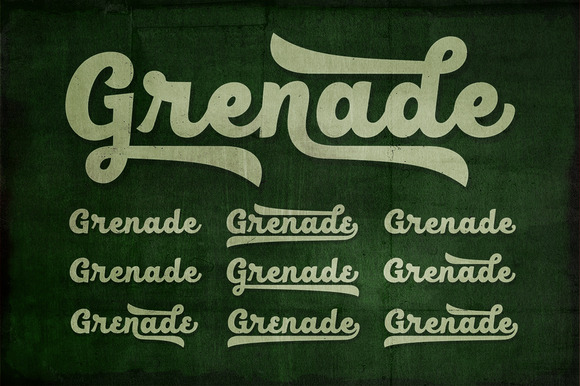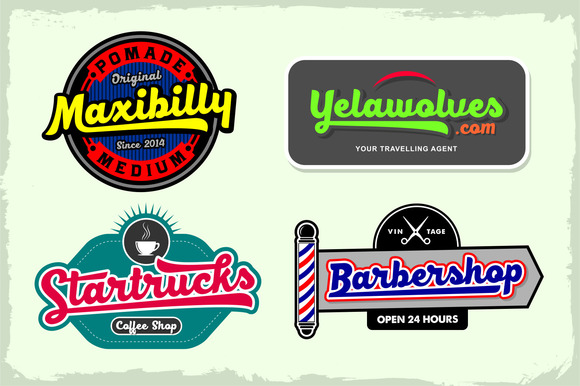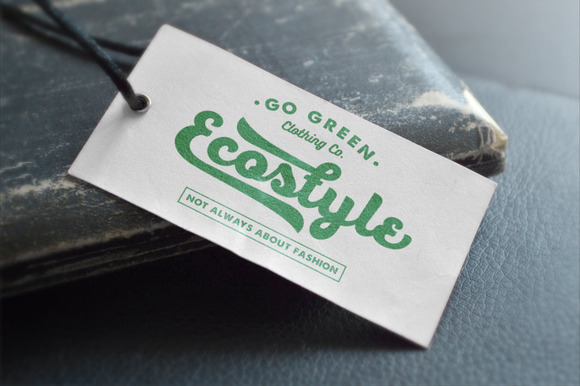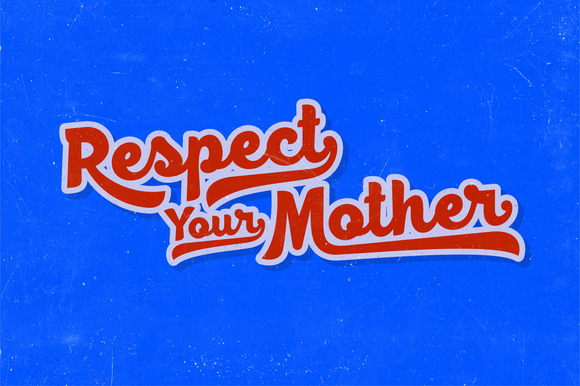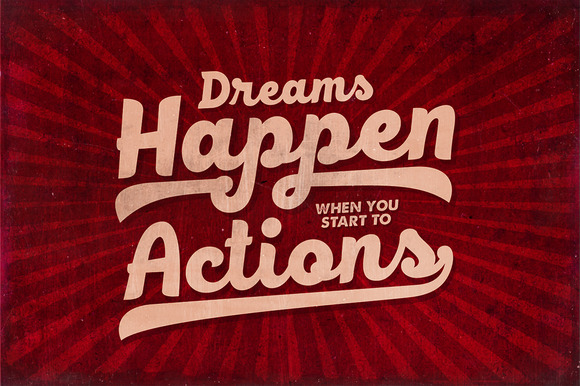
The Perfect Script for Making a Statement
You’ve got that creative spark – the idea for a new project, a concept that’s been brewing in your mind for weeks. You’re excited to bring it to life, but the only thing holding you back is the perfect font to match your vision. That’s where the Blackfat Script Font comes in – a bold, retro script font that’s designed to make a statement.
Whether you’re working on a poster, a t-shirt design, or a logo, the Blackfat Script Font is the perfect choice. Its versatility and unique style make it an ideal font for headings, labels, book covers, and much more. For designers, the Blackfat Script Font is a valuable addition to their toolkit, offering a fresh and eye-catching way to add personality to their projects.
Blackfat Script Font Key Features
- Font Family: Blackfat Script, a beautiful and elegant script font designed for various applications.
- Unique Characteristics: Blackfat Script features a unique blend of elegance and sophistication, with subtle flair and swashes that add a touch of personality to any design.
Blackfat Script Font Review
I recently had the chance to work with the Blackfat Script font, and I must say it’s a unique and interesting addition to any design project. Here are my thoughts:
- Expressive and emotive**: Blackfat Script is perfect for creating a sense of drama and flair in your designs. Its flowing lines and swashes evoke a sense of elegance and sophistication.
- Highly customizable**: The font offers a wide range of OpenType features, allowing you to fine-tune the look and feel to suit your needs.
- Beautifully designed**: Each letterform is meticulously crafted to create a cohesive and polished look.
- Not ideal for small text**: Due to its elaborate design, Blackfat Script can be challenging to read in smaller sizes.
- May not be suitable for formal documents**: While it’s perfect for creative projects, Blackfat Script may not be the best choice for formal documents or situations where a more traditional font is required.
Overall, I’m impressed with the Blackfat Script font. It’s a versatile and expressive font that can add a touch of sophistication to any design project. While it may have some limitations, it’s definitely worth considering for the right projects.
For a more elegant look, pair the Blackfat Script font with a clean sans-serif font like Open Sans or Lato.
For a more polished look, use the font’s built-in ligatures and swashes to create a cohesive design.
For a more professional look, use the font’s subtle texture and nuances to add depth to your text.
The Blackfat Script font is perfect for:
Quote graphics and social media posts
Any design project that requires a touch of elegance and sophistication
Pair the Blackfat Script font with complementary colors and textures to add depth and dimension.
Use the font’s built-in ligatures and swashes to create a cohesive and polished design.